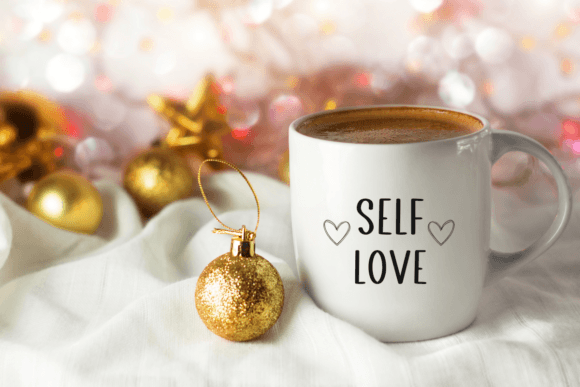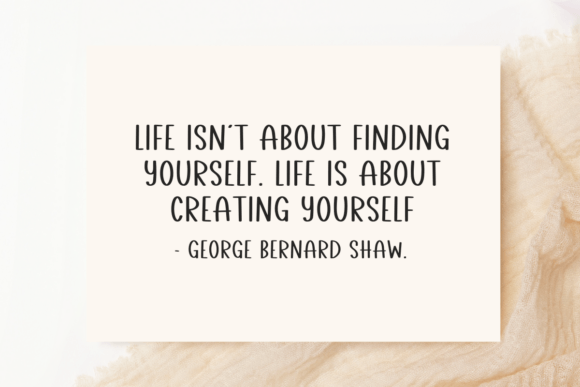
Introduction to Piper Cleaner Font
Have you ever found yourself rummaging through your stash of colorful pens and markers, searching for the perfect font to bring your creative project to life? For many designers, the perfect font can be the difference between a dull and engaging design. That’s where the Piper Cleaner Font comes in – a delightful sans-serif font that’s perfect for adding a touch of fun and friendliness to your projects.
Whether you’re creating a set of printable stationery, designing a daily planner, or working on a scrapbook, the Piper Cleaner Font is an excellent choice. With its high-quality design and transparent background, this font is a valuable resource for any designer looking to add a personal touch to their work. And the best part? It’s available for free download, making it an accessible design resource for creatives of all levels.
So, what makes the Piper Cleaner Font so special? In this article, we’ll dive into the details of this fantastic font and explore its many uses, from teacher materials to greeting cards and invitations.
Piper Cleaner Font
- High-quality design resource ideal for creative projects requiring a minimalist aesthetic.
- Comes with a transparent background, allowing for seamless integration into various design applications.
- Features a clean and elegant design, making it perfect for use in logos, typography, and other visual elements.
Honest Review: Piper Cleaner Font
I recently had the chance to work with the Piper Cleaner Font, and I must say, it’s been a game-changer for my design projects. The font is a high-quality design resource that offers a fresh and modern look that’s perfect for creative projects.
What works well is the font’s versatility – it can be used for a variety of design projects, from logos to brochures. The font also comes with a transparent background, making it easy to integrate into your design. The font is also free to download, which is a huge plus for designers on a budget.
Here are some of the key features that I love about the Piper Cleaner Font:
One thing to note is that the font may not be suitable for very small text sizes. At ⚠️ smaller font sizes, the letters may become blurry and difficult to read.
Overall, I’m really impressed with the Piper Cleaner Font. It’s a great addition to any designer’s toolkit, and I would highly recommend it for any creative project. ✨ The font’s modern look and versatility make it a standout choice, and the fact that it’s free to download is just the icing on the cake.
The Piper Cleaner Font is a high-quality design resource ideal for creative projects requiring a clean and modern aesthetic. This free download offers a transparent background, making it versatile for various applications.
The Piper Cleaner Font is suitable for various applications, including:
- Website headers and footers
- Social media graphics and advertisements
Alternatives to Piper Cleaner Font
Does the Piper Cleaner Font have a transparent background?
Yes, the Piper Cleaner Font has a transparent background, making it ideal for designs that require a high level of customization. The transparent background also allows you to easily combine the font with other design elements, such as images or graphics. This feature is particularly useful for creating high-quality designs that require a high level of visual precision.